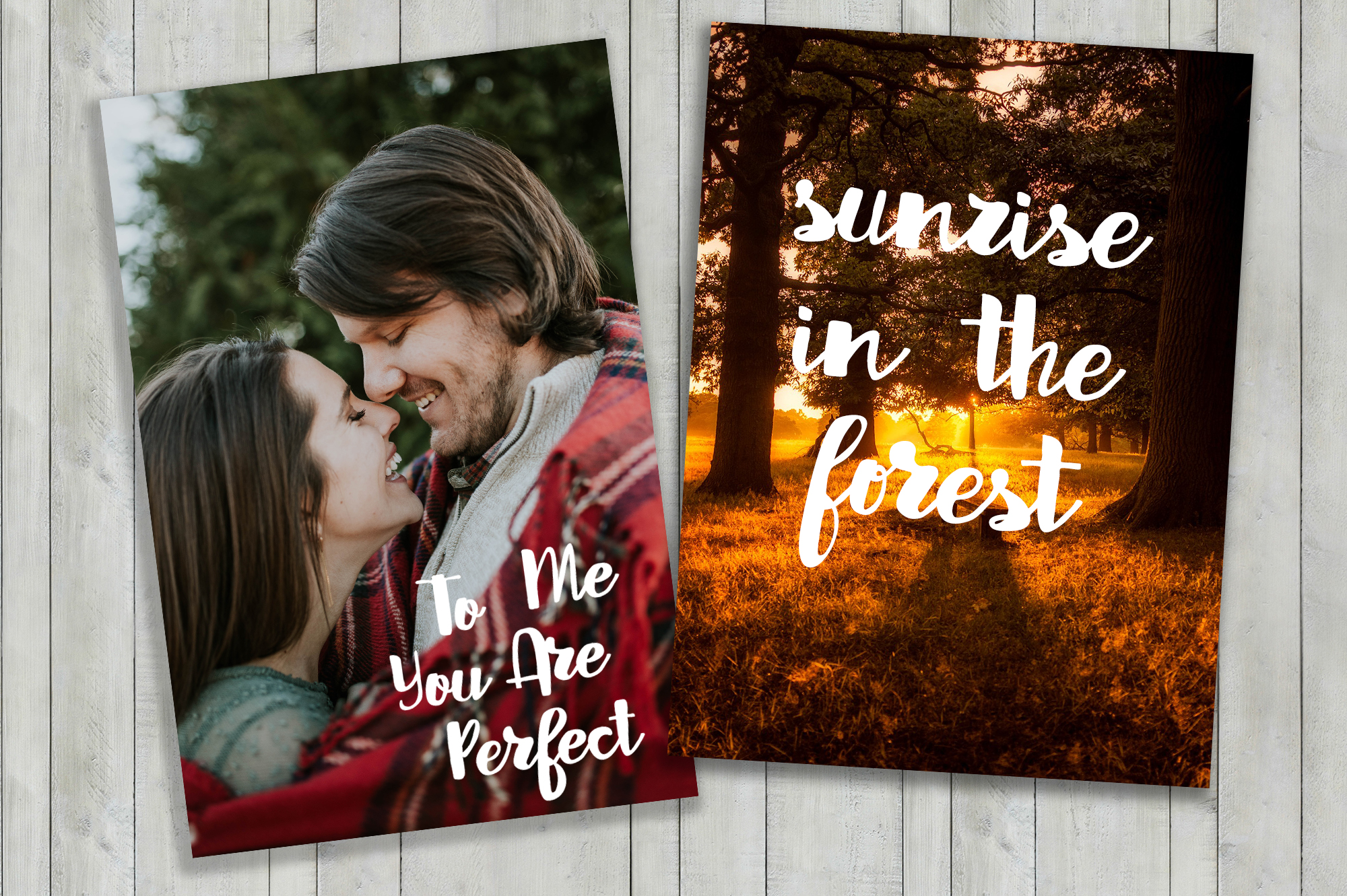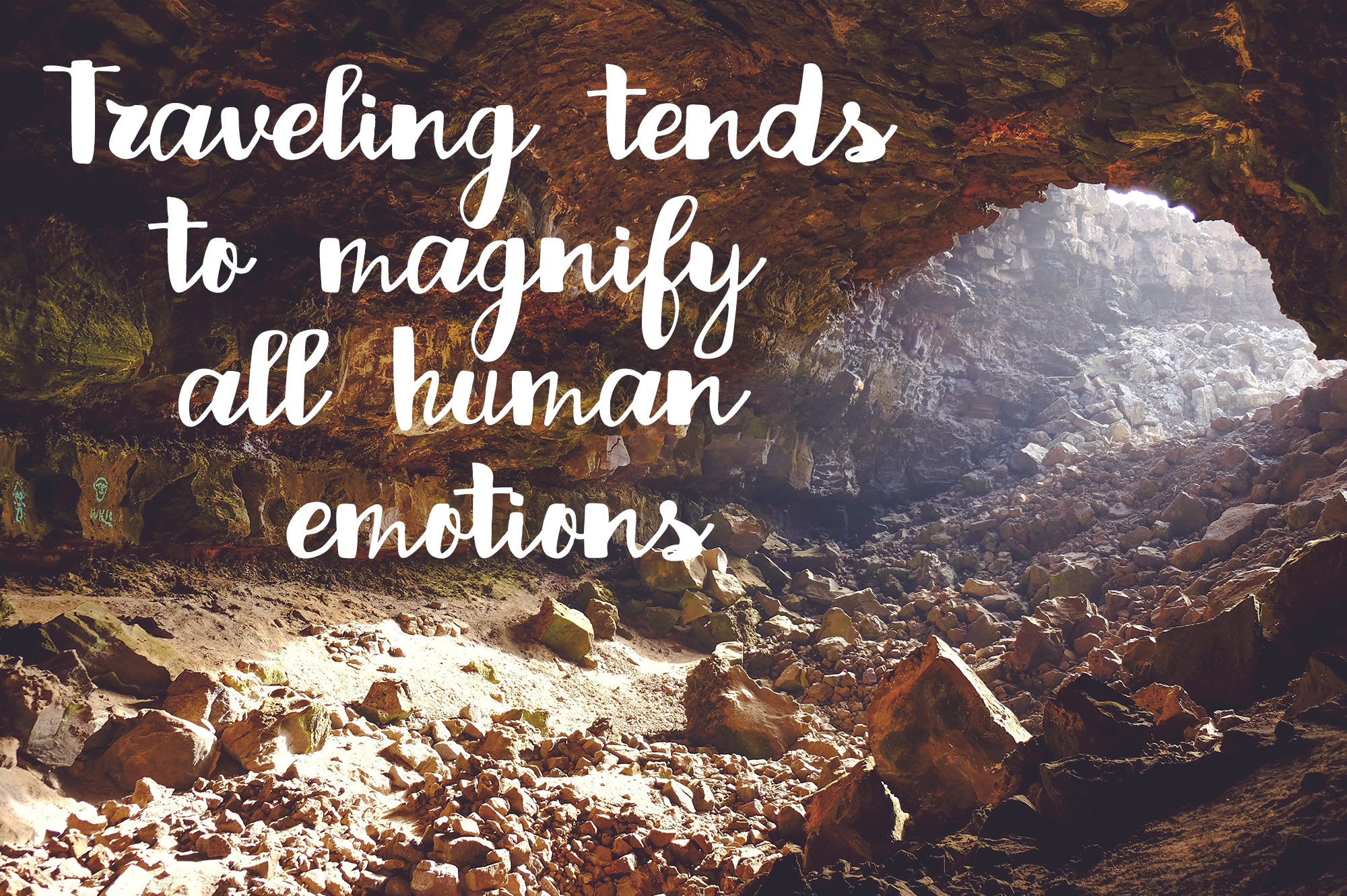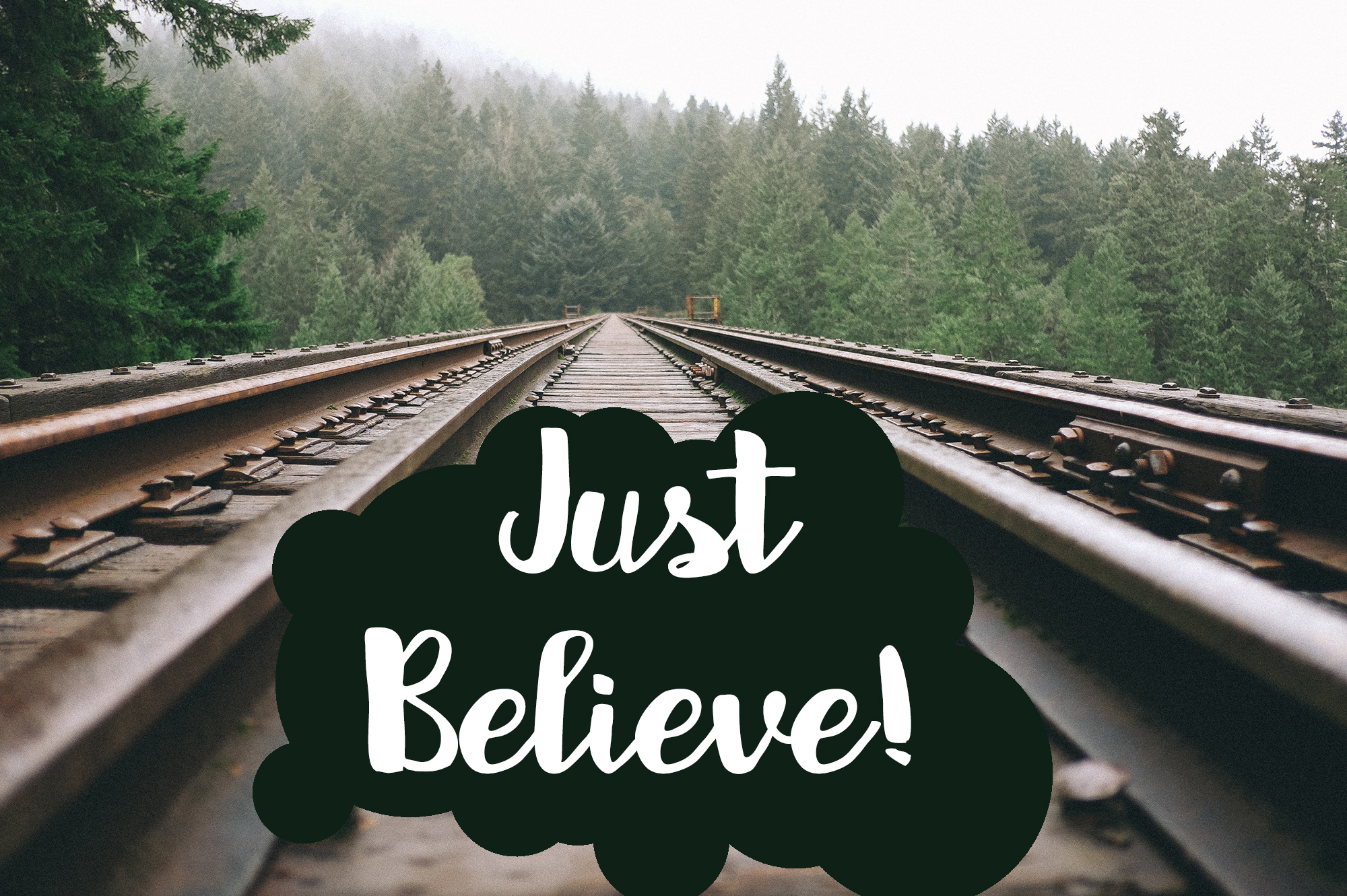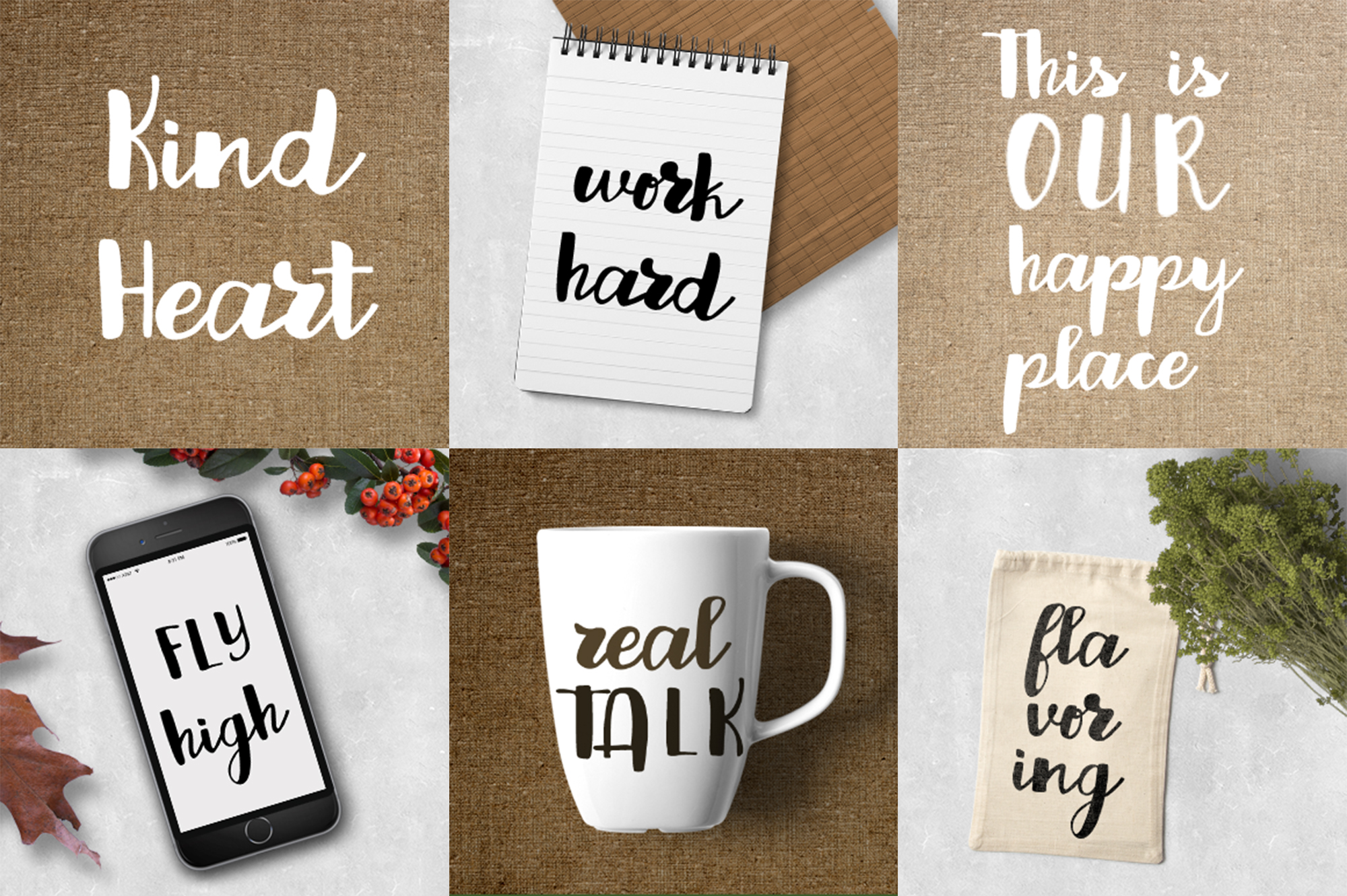
Abermad Font: A Gorgeous and Soft Script for Friendly Designs
Are you looking for a font that can add a touch of warmth and friendliness to your designs? Look no further than the Abermad Font! This beautiful script font is perfect for designers and crafters who want to create stunning and charming designs that capture the essence of calligraphic art.
What is Abermad Font?
Abermad is a gorgeous and soft script, handwritten with a wonderfully friendly approach to calligraphic design. This font is designed to bring a sense of elegance and sophistication to your designs, while still maintaining a playful and approachable feel. With its smooth and flowing lines, Abermad Font is perfect for creating beautiful headings, titles, and text that will make your designs stand out.
Features of Abermad Font
Abermad Font has several features that make it a great choice for designers and crafters. Some of its key features include:
- Soft and smooth lines: Abermad Font has a smooth and flowing script that gives it a soft and gentle feel.
- Handwritten approach: The font is handwritten with a friendly approach to calligraphic design, giving it a personal and approachable feel.
- Perfect for large formats: Abermad Font looks stunning in larger formats, making it perfect for creating eye-catching headings and titles.
- Adds charm to designs: The font has a charming and elegant feel that can add a ton of character to your designs.
Uses of Abermad Font
Abermad Font is a versatile font that can be used in a variety of design projects. Some of the ways you can use Abermad Font include:
- Branding and logos: Abermad Font is perfect for creating beautiful and elegant logos that capture the essence of your brand.
- Headings and titles: The font is great for creating stunning headings and titles that will make your designs stand out.
- Invitations and cards: Abermad Font is perfect for creating beautiful invitations and cards that have a personal and elegant feel.
- Packaging and labels: The font can be used to create charming and eye-catching packaging and labels that will make your products stand out.
Benefits of Using Abermad Font
There are several benefits to using Abermad Font in your designs. Some of the benefits include:
- Unique and elegant look: Abermad Font has a unique and elegant look that will make your designs stand out.
- Friendliness and approachability: The font has a friendly and approachable feel that will help you connect with your audience.
- Versatility: Abermad Font is a versatile font that can be used in a variety of design projects.
Tips for Using Abermad Font
Here are some tips for using Abermad Font in your designs:
- Use it in large formats: Abermad Font looks stunning in larger formats, so use it to create eye-catching headings and titles.
- Experiment with colors: The font looks great in a variety of colors, so experiment with different colors to find the one that works best for your design.
- Pair it with other fonts: Abermad Font can be paired with other fonts to create a unique and interesting look.
- Use it consistently: Use Abermad Font consistently throughout your design to create a cohesive and elegant look.
Abermad Font is a beautiful and elegant script font that is perfect for designers and crafters who want to create stunning and charming designs. With its soft and smooth lines, handwritten approach, and versatility, Abermad Font is a great choice for a variety of design projects. Whether you’re creating headings and titles, logos and branding, or invitations and cards, Abermad Font is sure to add a touch of elegance and sophistication to your designs.